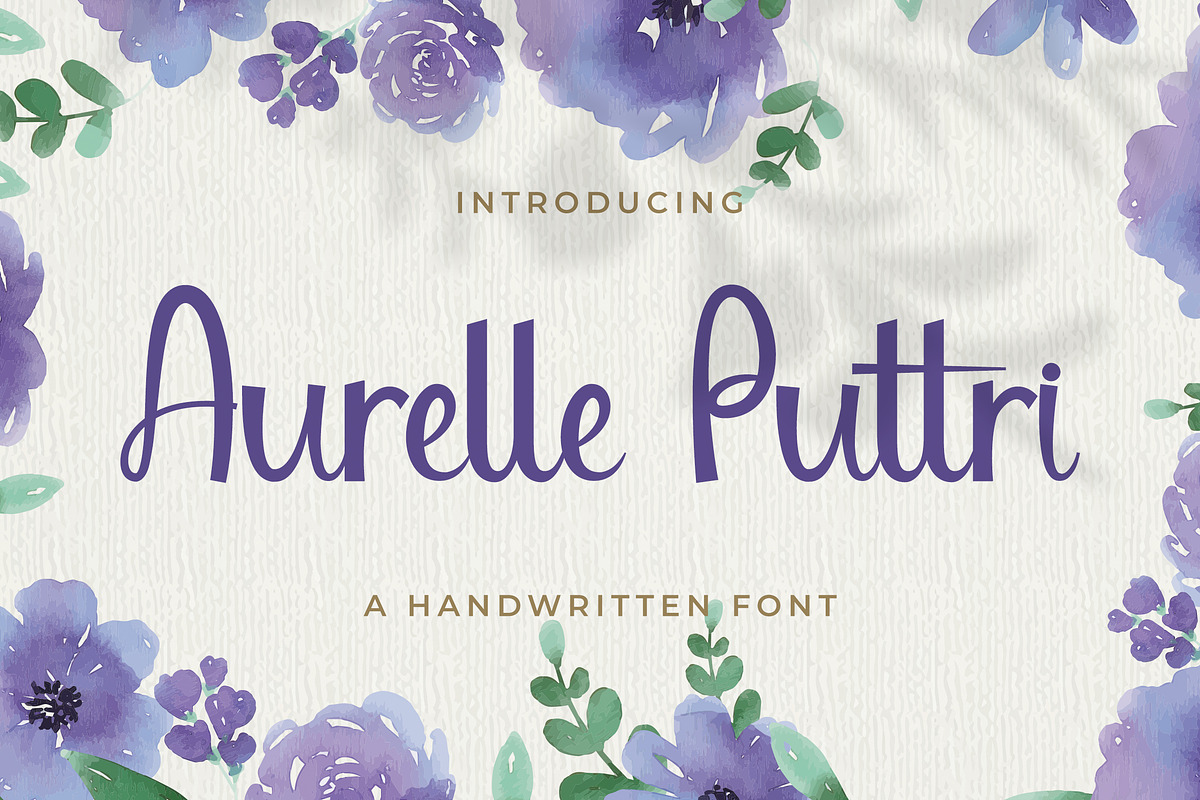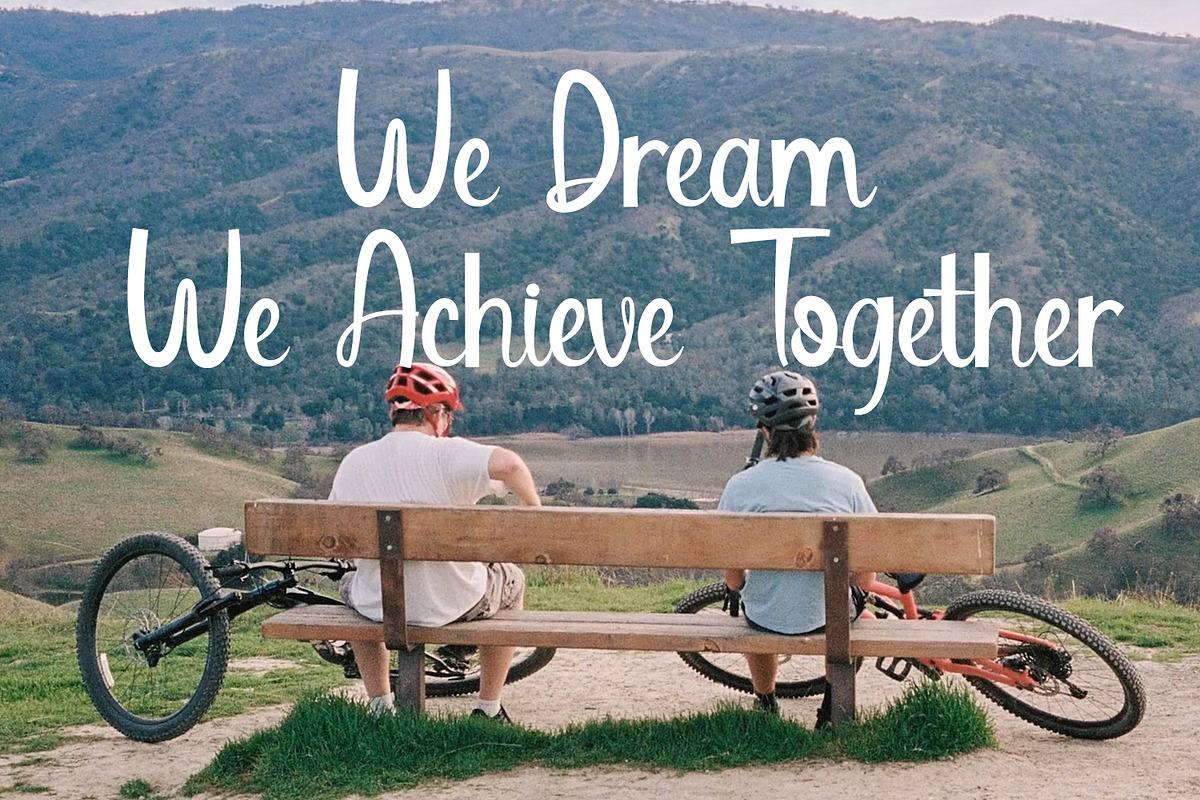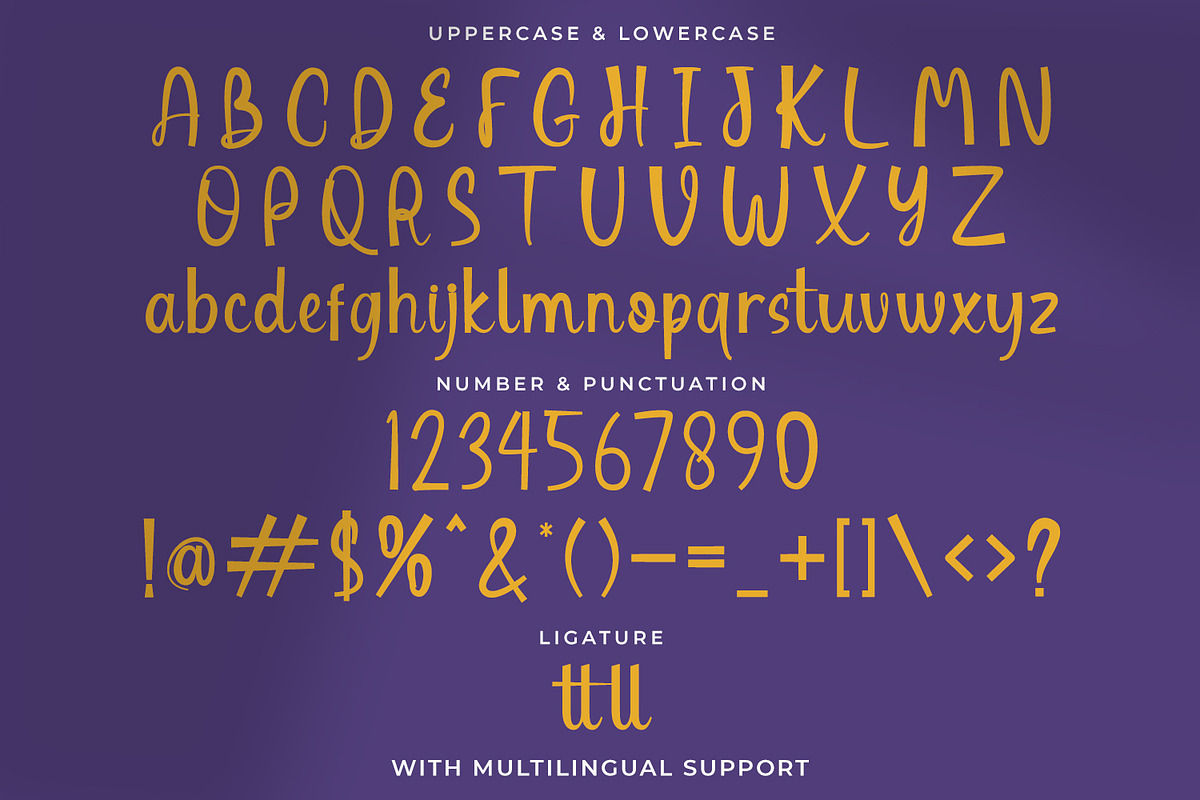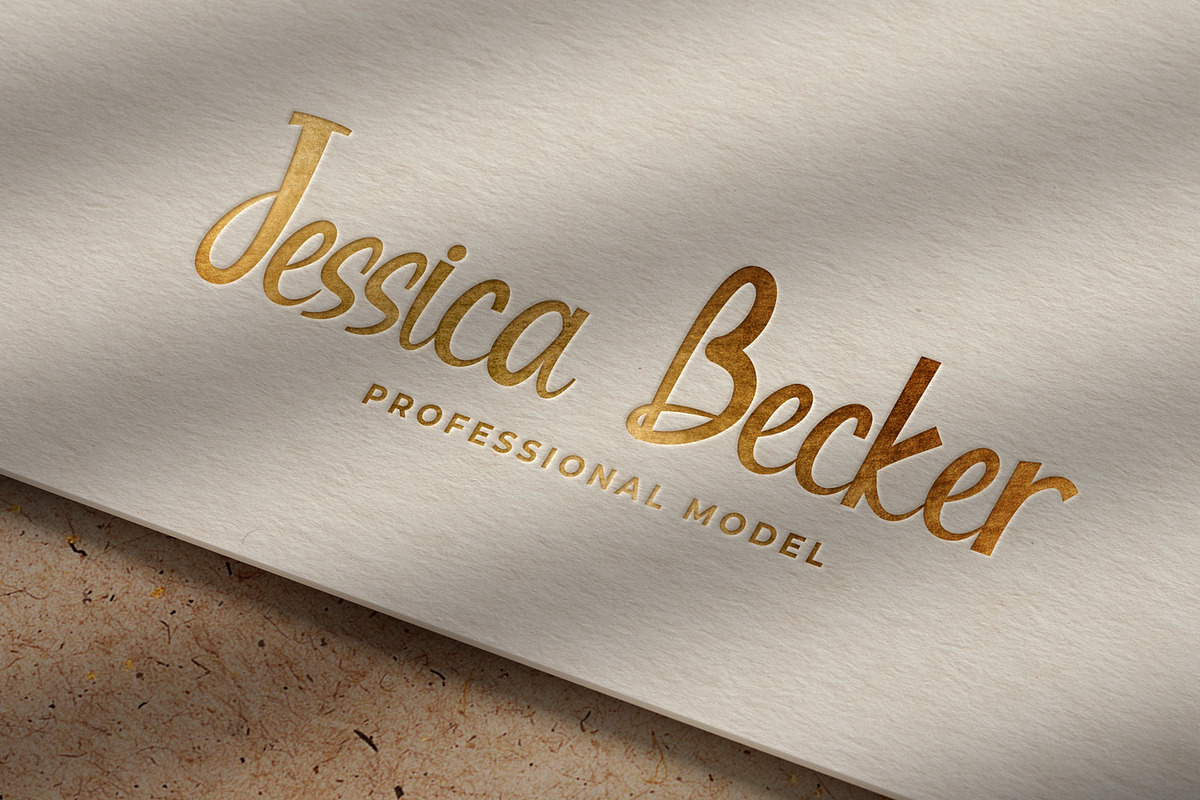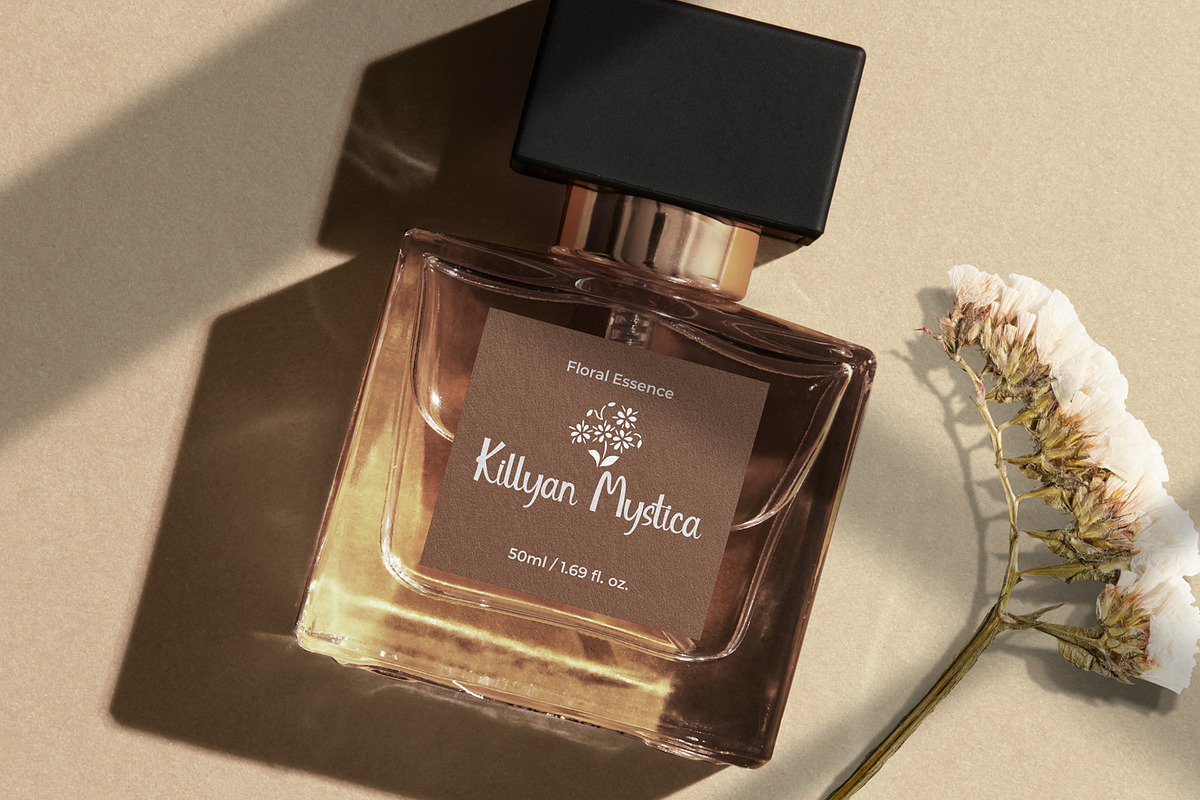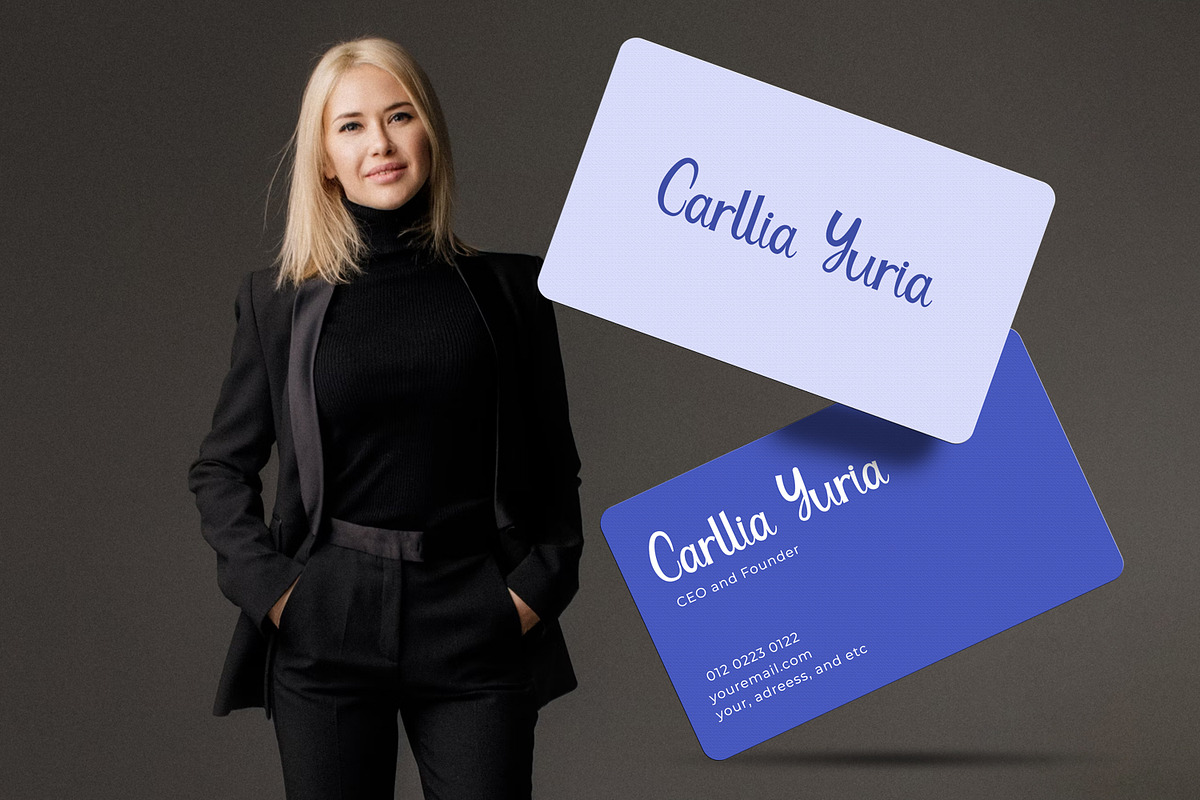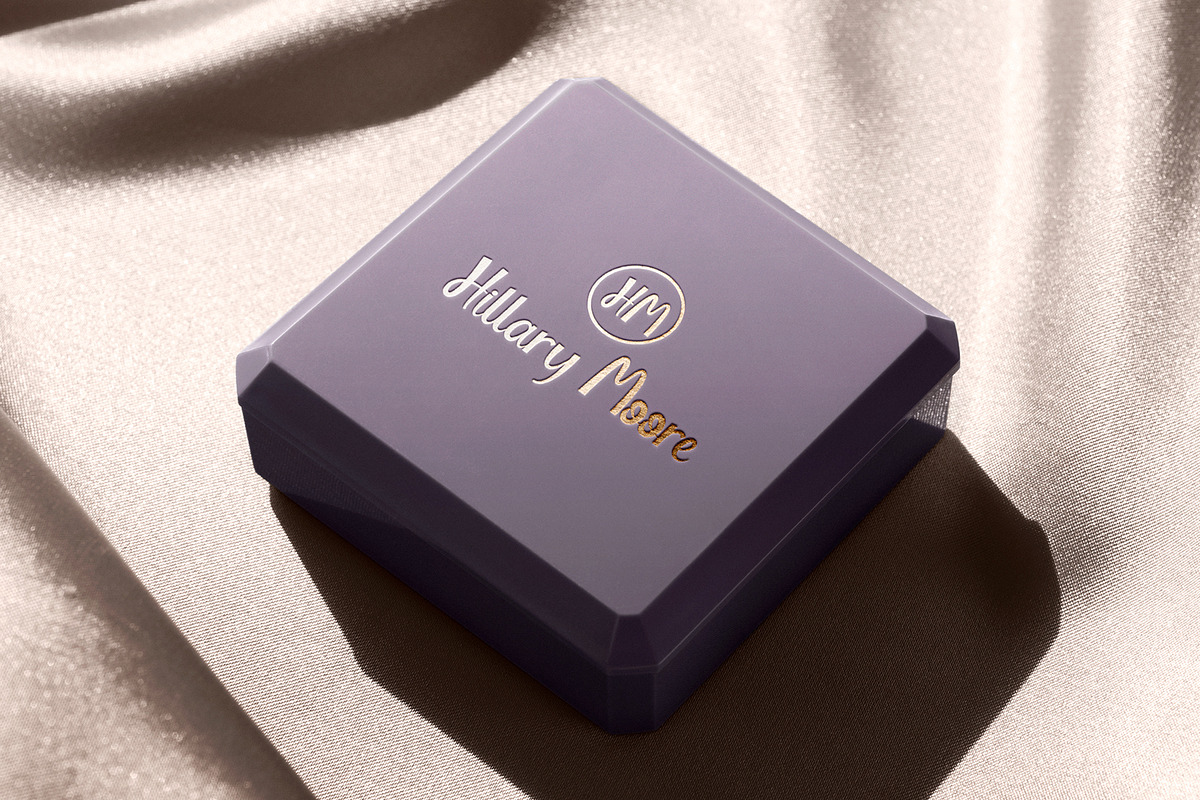
Aurelle Puttri - Handwritten Font
Aurelle Puttri is A Modern Handwritten Script
Aurelle Puttri is a modern handwritten script typeface that takes inspiration sign painting, wedding, restaurant branding, and more. With a variety of characters, you can make Aurelle Puttri feel personalized for your client's project. Create headlines, logos, apparel designs, and more with this versatile script font!